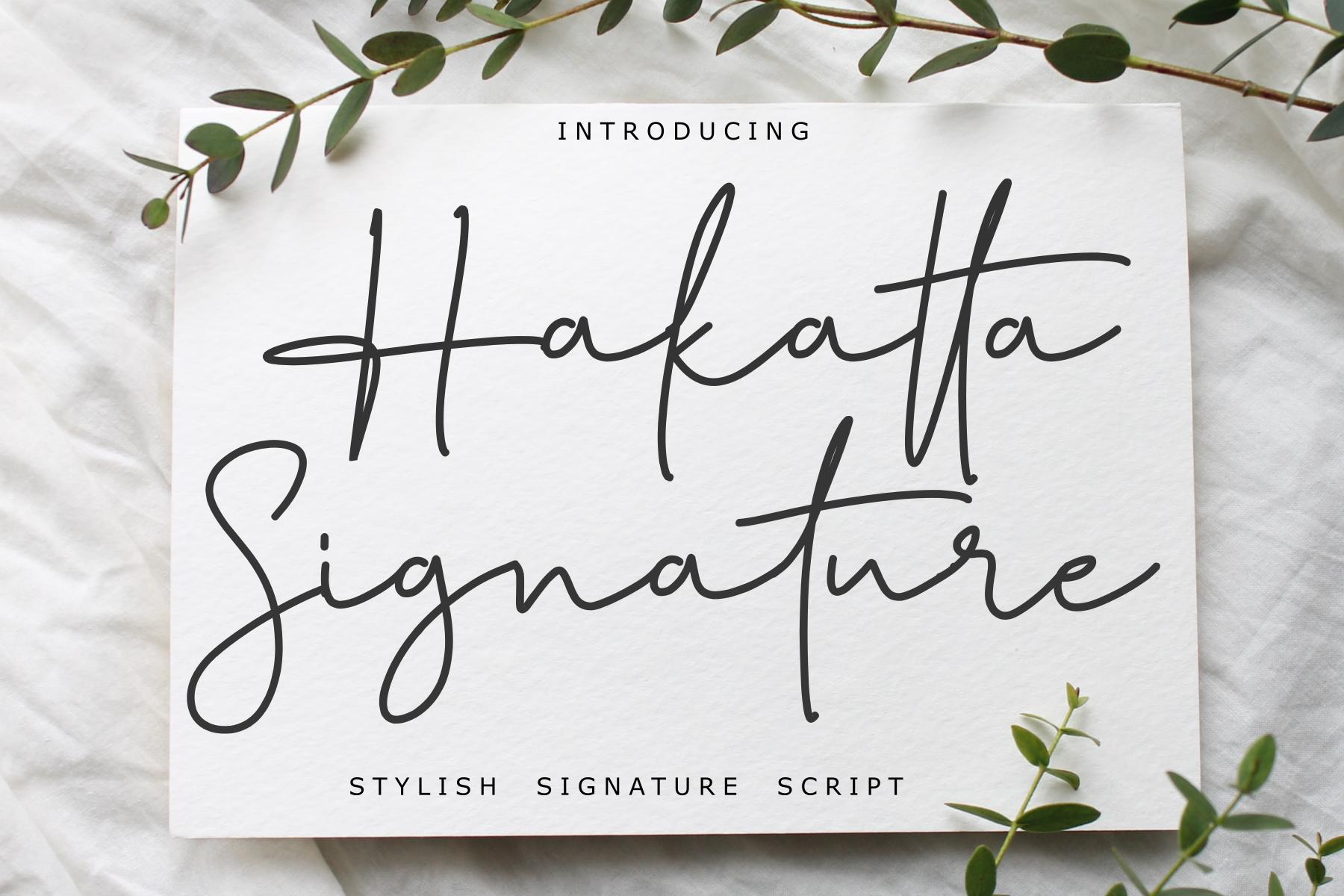
Hakatta Signature Font Description
Hakatta Signature is a delicate, elegant and flowing handwritten font. It has beautiful and well balanced characters and as a result, it matches a wide pool of designs. Add it to your most creative ideas and notice how it makes them come alive!